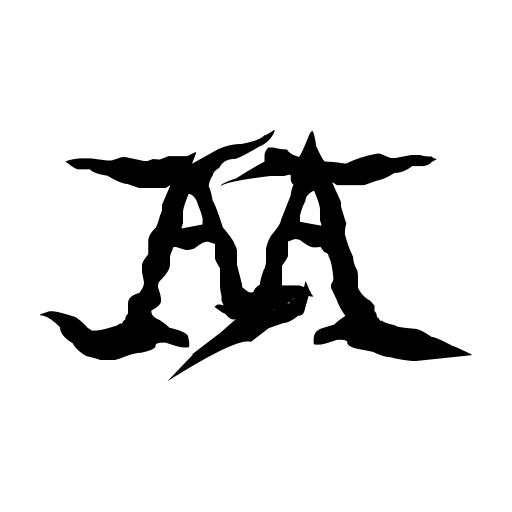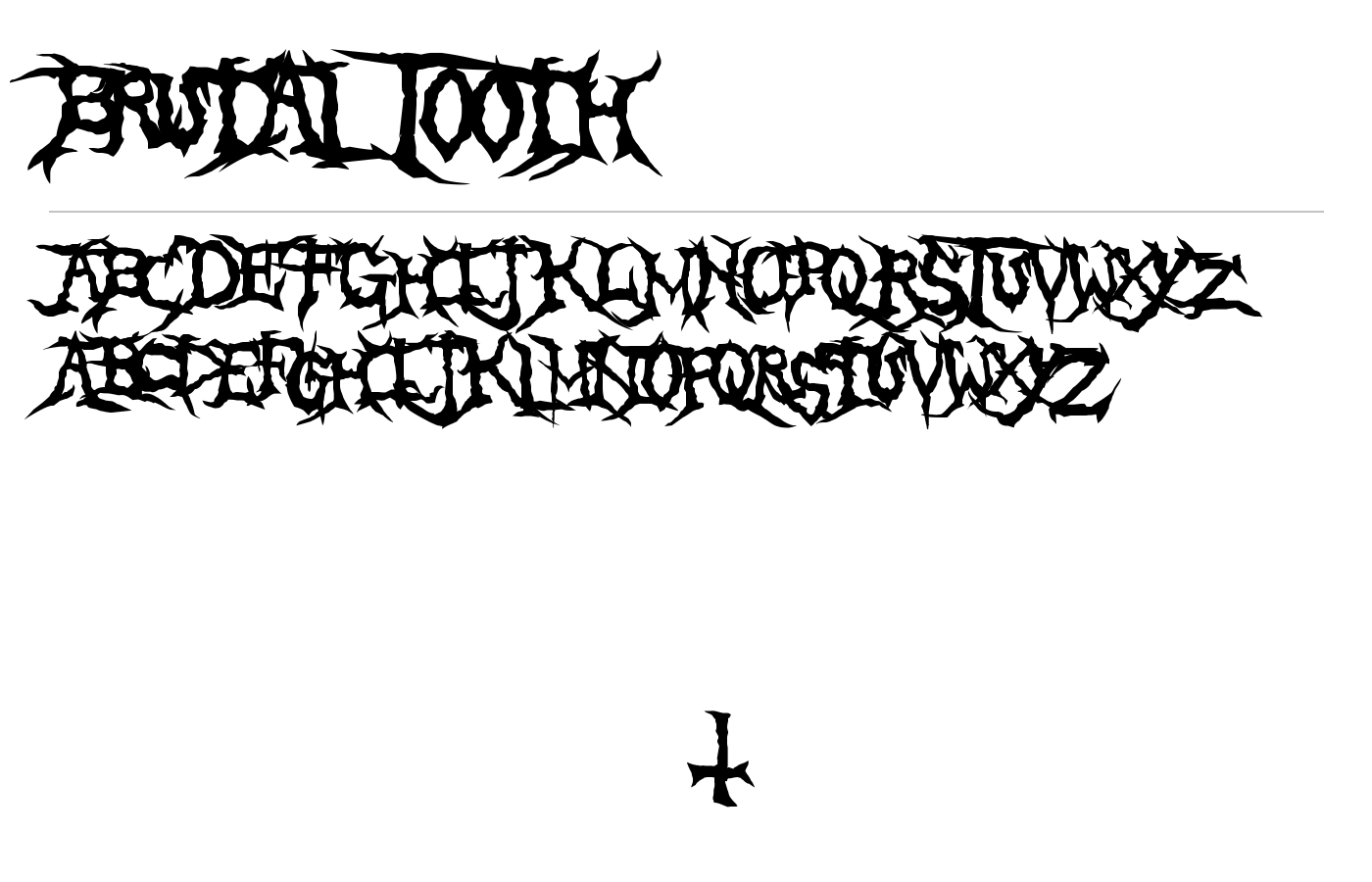
Brutal Tooth is an aggressive, highly stylized display font with sharp, jagged strokes that evoke a raw, edgy vibe. Its distorted letterforms and irregular shapes make it perfect for heavy metal, horror, or underground branding where a rebellious and intense mood is desired. This font works best in logos, posters, and album covers where bold visual impact is key, rather than in body text due to its complex and dense design.
Brutal Tooth Font
About Brutal Tooth Font